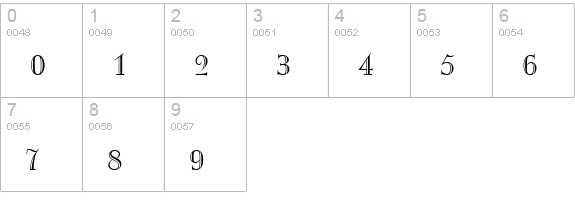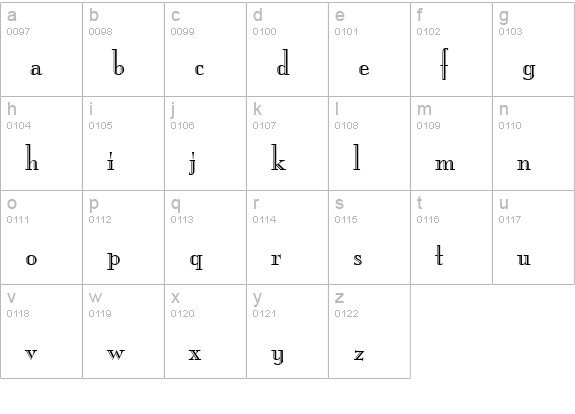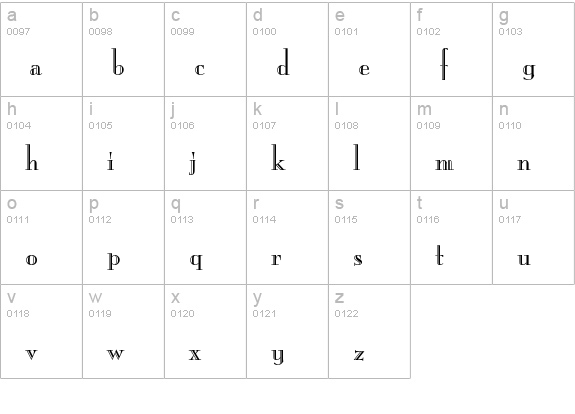
Mona Lisa ICG Recut Font Details
The Mona Lisa ICG Recut font is a sophisticated and elegant typeface that exudes timeless beauty and charm. With its delicate curves and intricate details, this font is perfect for adding a touch of sophistication to any design project. The graceful lines of the letters evoke a sense of classic beauty and refinement, making this font a truly versatile choice for a wide range of applications. What sets the Mona Lisa ICG Recut font apart is not only its stunning aesthetic appeal, but also the fact that it is available for free download at FontsMarket.com. This means that you can easily access this exquisite font and incorporate it into your projects without any cost. Whether you're working on a branding project, a wedding invitation, or any other design endeavor, the Mona Lisa ICG Recut font is sure to elevate your work and make a lasting impression. Download this beautiful font today and add a touch of elegance to your designs.